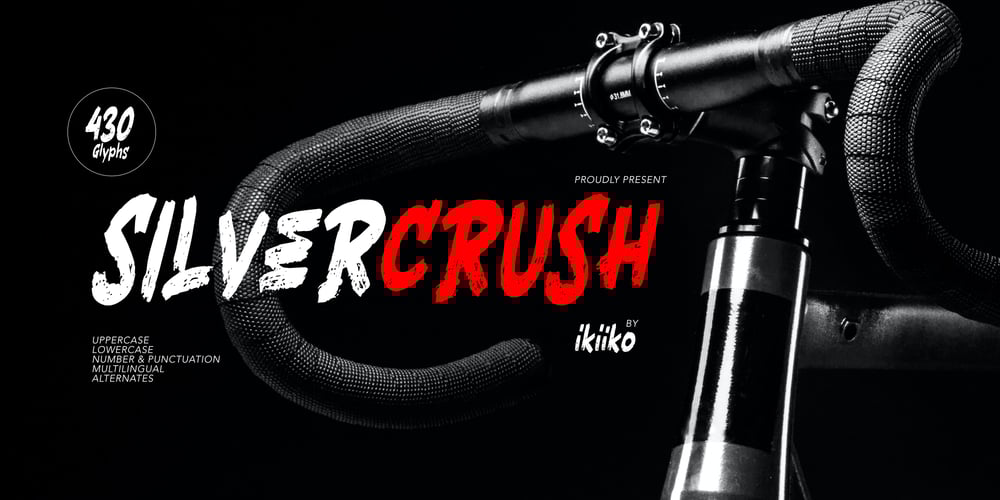
Silvercrush
Silvercrush font
Silvercrush Font Family was designed by Wahyu Eka Prasetya, Andhika Pradana and published by IKIIKOWRK. Silvercrush contains 1 styles and family package options. Introducing SILVERCRUSH Typeface, created by ikiiko.A rough letters with expressive strokes and have a strong character for street art typeface. Silvercrush typeface is perfect for an poster event, urban brand, hipster magazine, fashion stuff, quotes, and all the design elements that require a street vibes.What’s included? Uppercase & Lowercase Number & Punctuation Bonus Alternates Multilingual Support Enjoy our font and if you have any questions, you can contact us by email : ikiikowrk@gmail.com